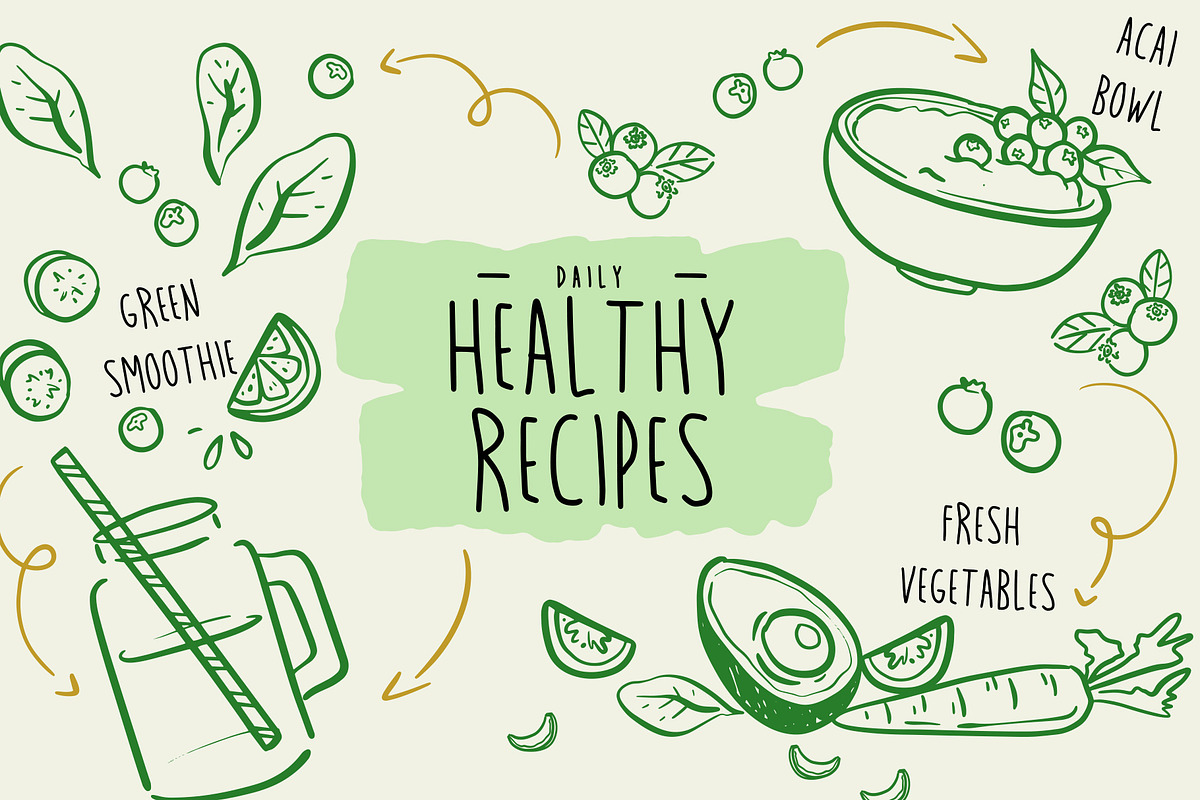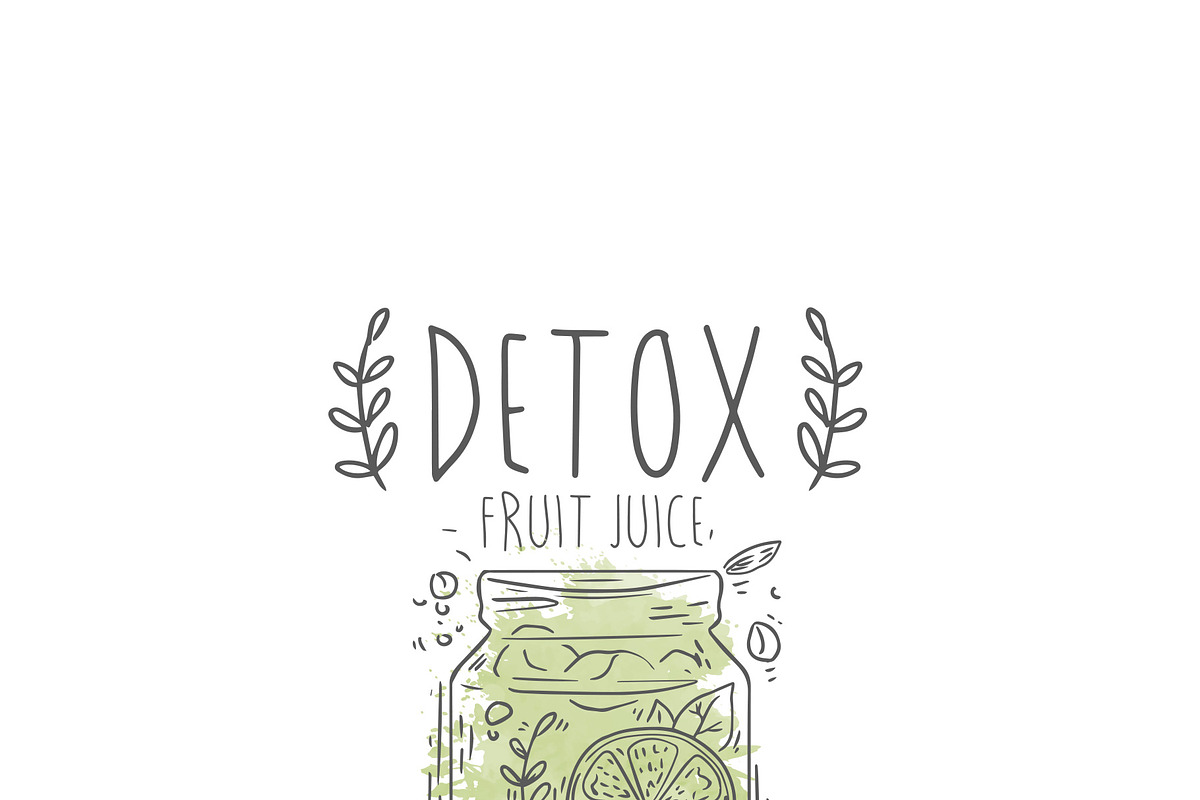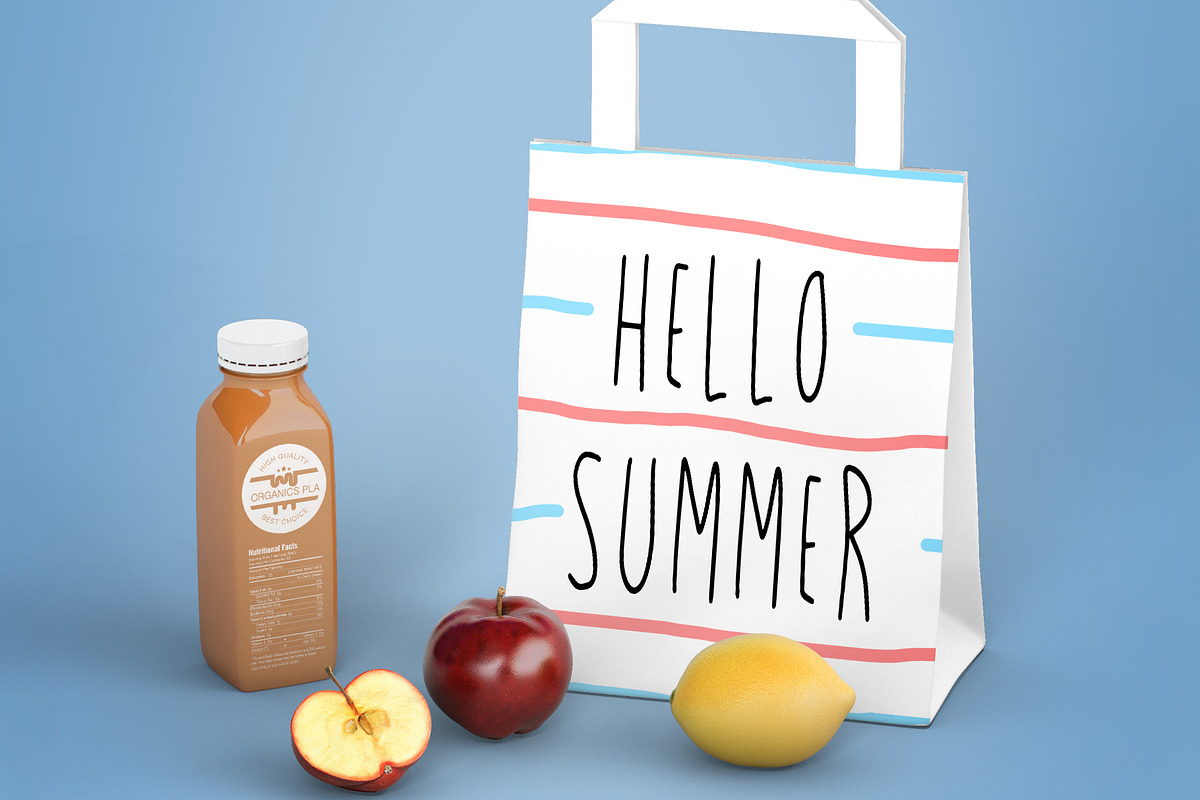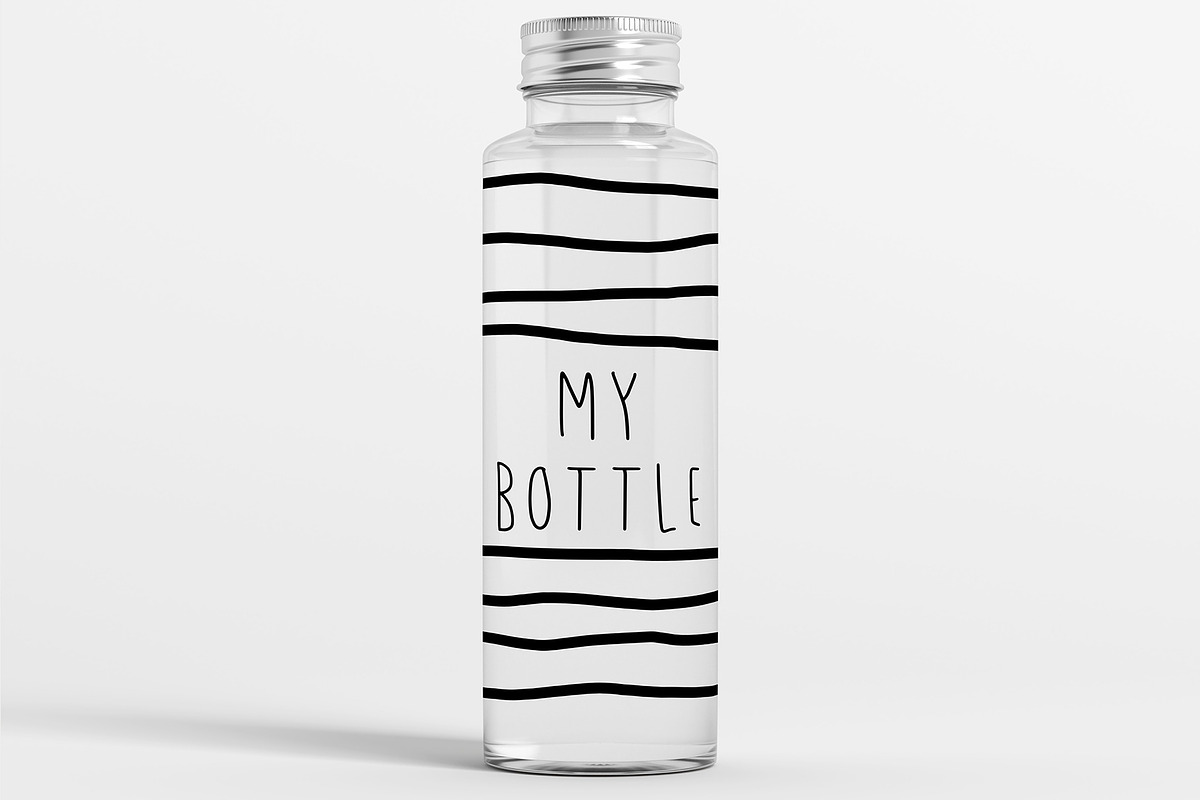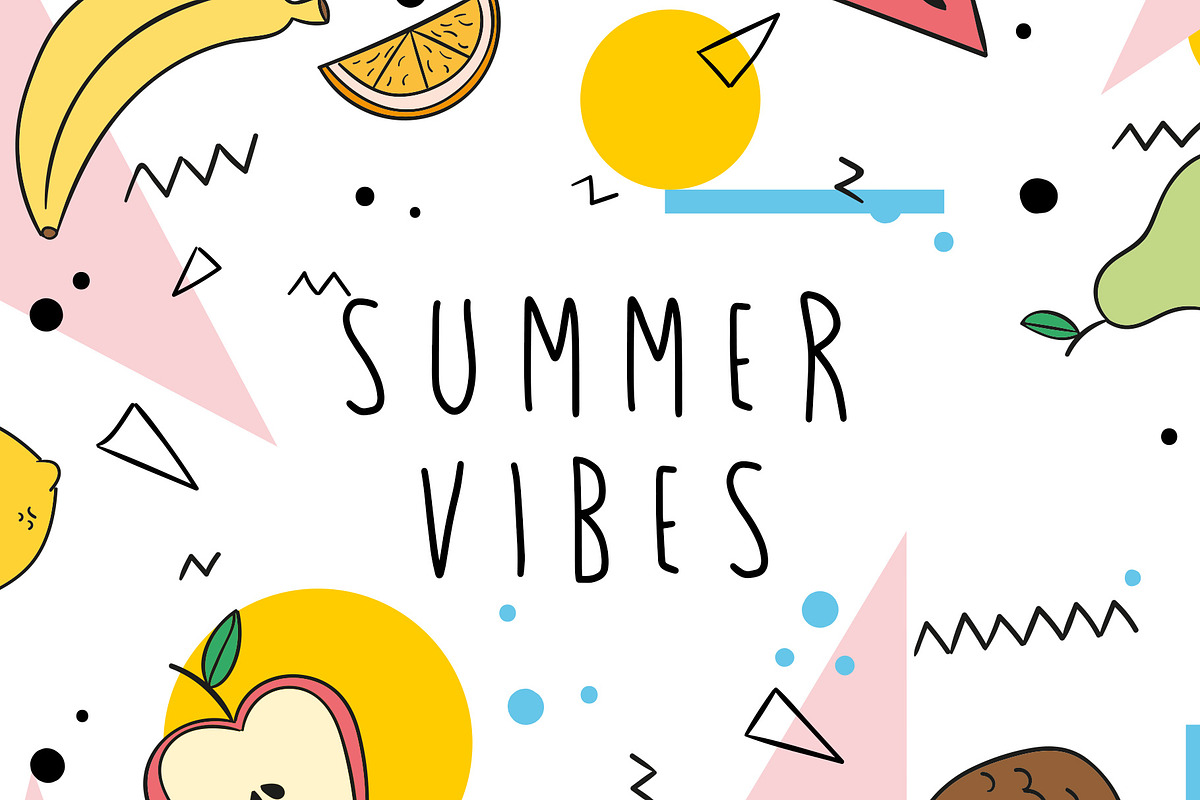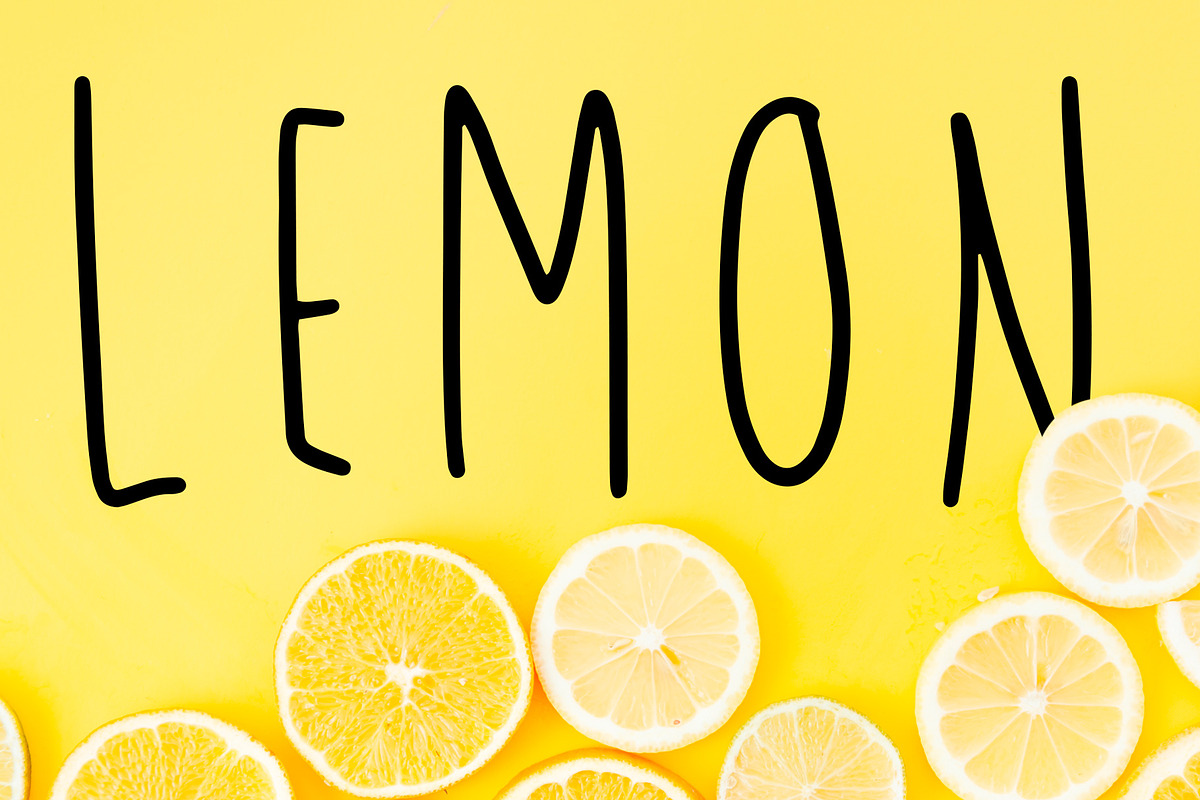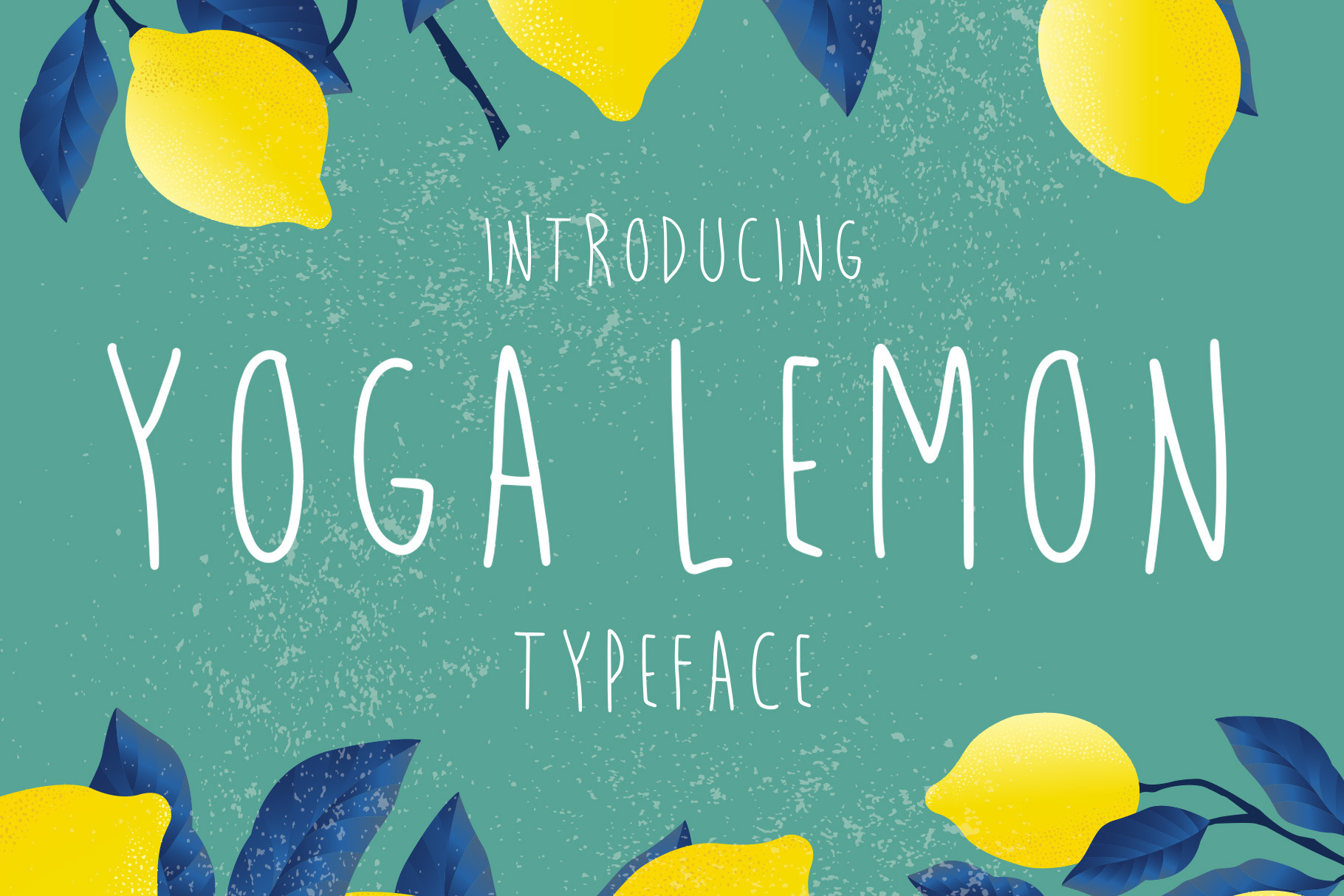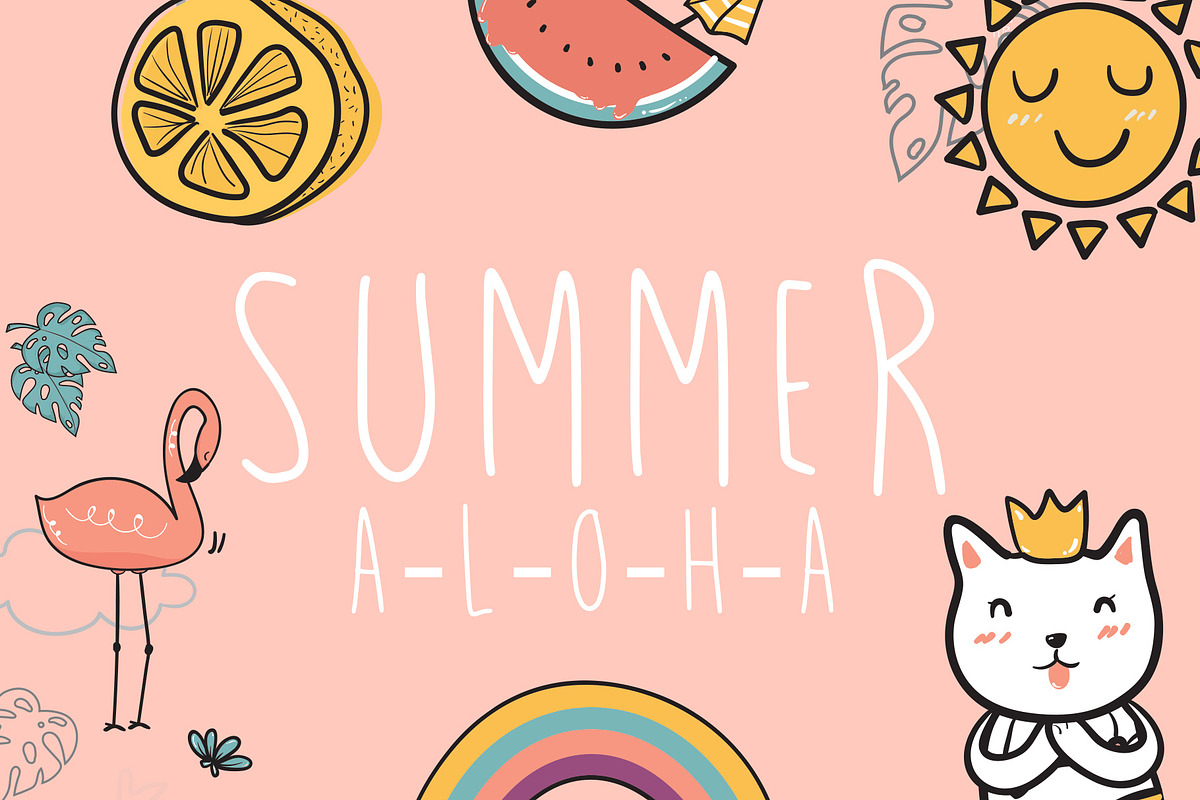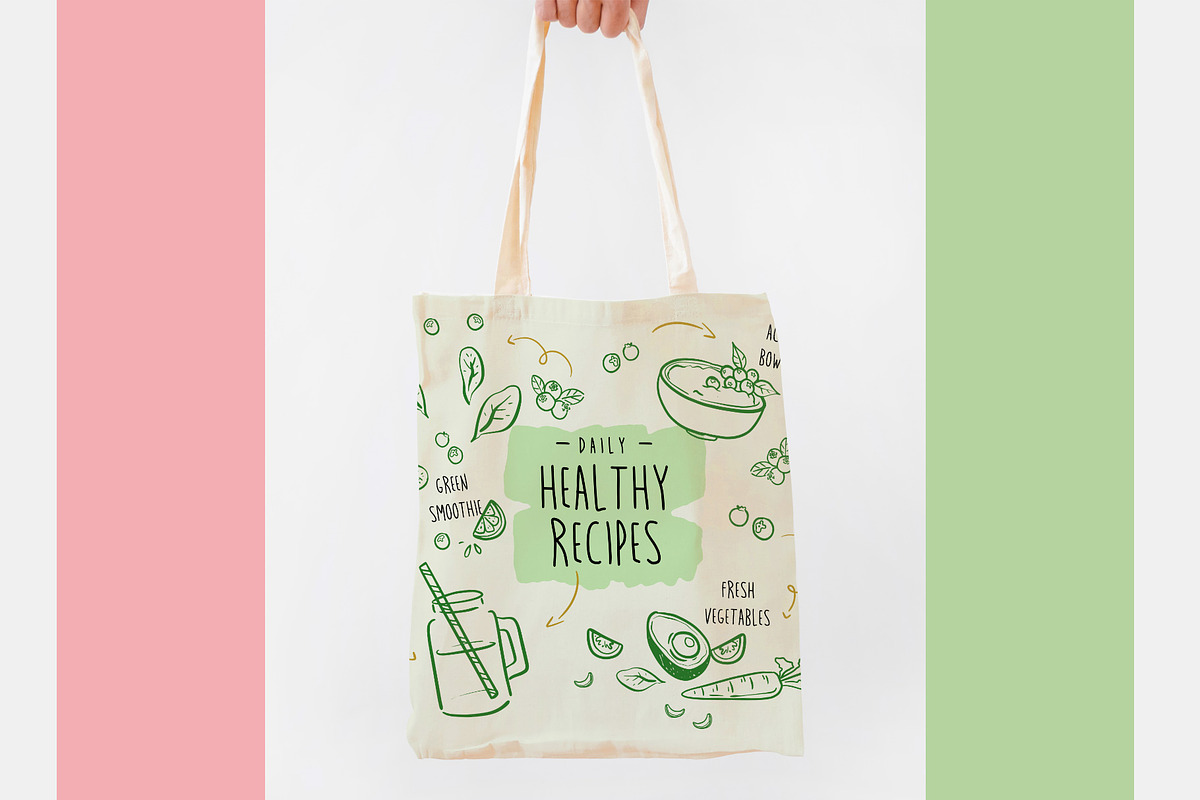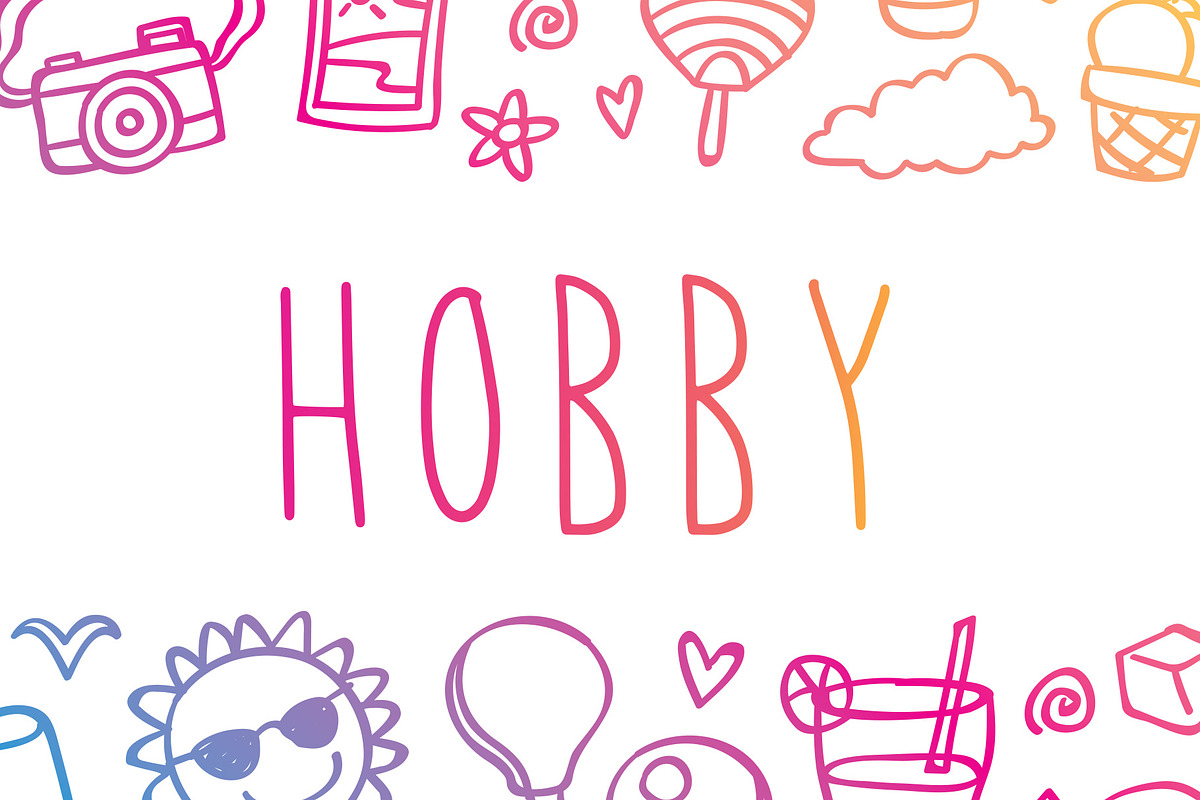
Yogalemon - typeface script
YOGALEMON TYPEFACE FONT Yogalemon typeface is a beautiful handwritten script font. This font is great for branding materials, quotes, business cards, headings, blogs, logos, Cricut artwork, posters and more!